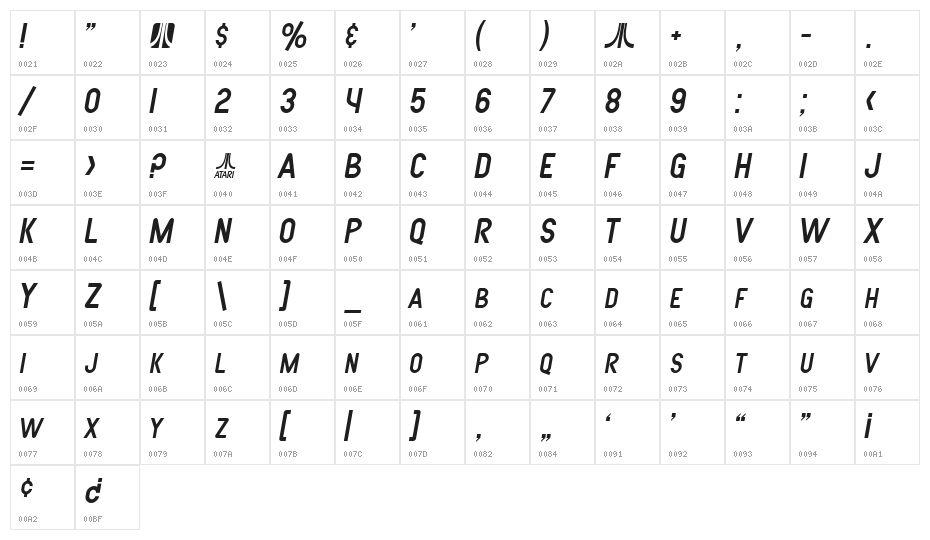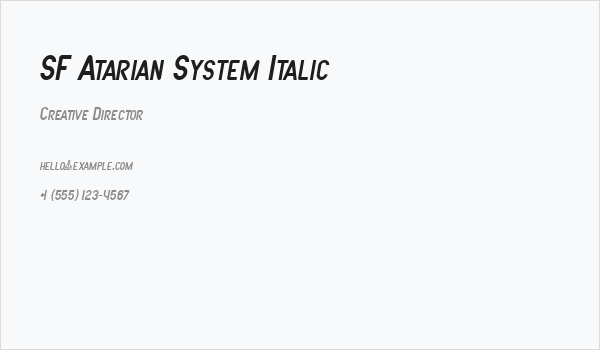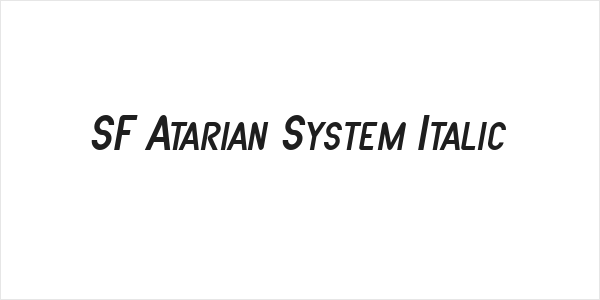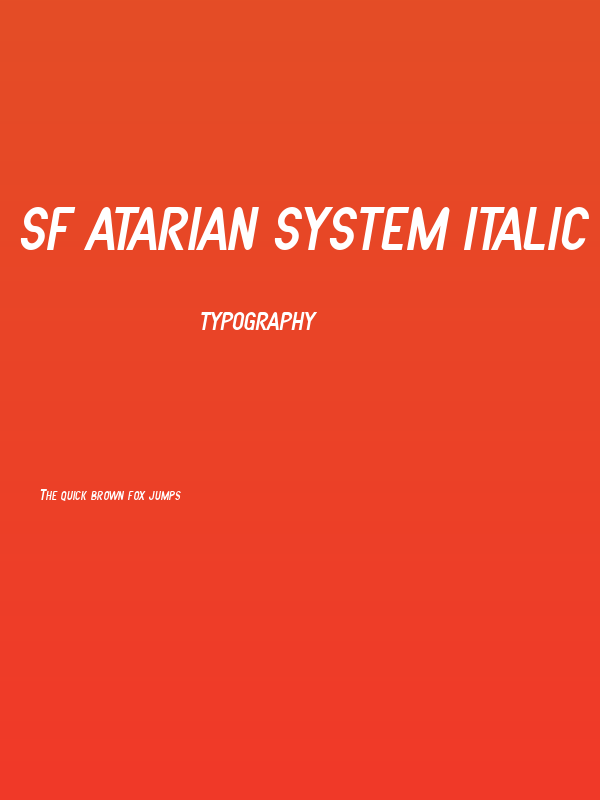
SF Atarian System Italic Font
SF Atarian System Italic Description
This font features a sleek, modern design with a distinct italic slant, giving it a dynamic and forward-moving appearance. The characters are bold and slightly condensed, enhancing readability while maintaining a compact form. The strokes are consistent in thickness, providing a medium contrast that balances clarity with style. The uppercase and lowercase letters are well-proportioned, and the numerals are clear and easily distinguishable. Special characters are designed with the same attention to detail, ensuring a cohesive look across all text elements.
| Proposed Projects | Ideal for projects that require a modern and dynamic look, such as tech branding, sports team logos, and contemporary advertising campaigns. |